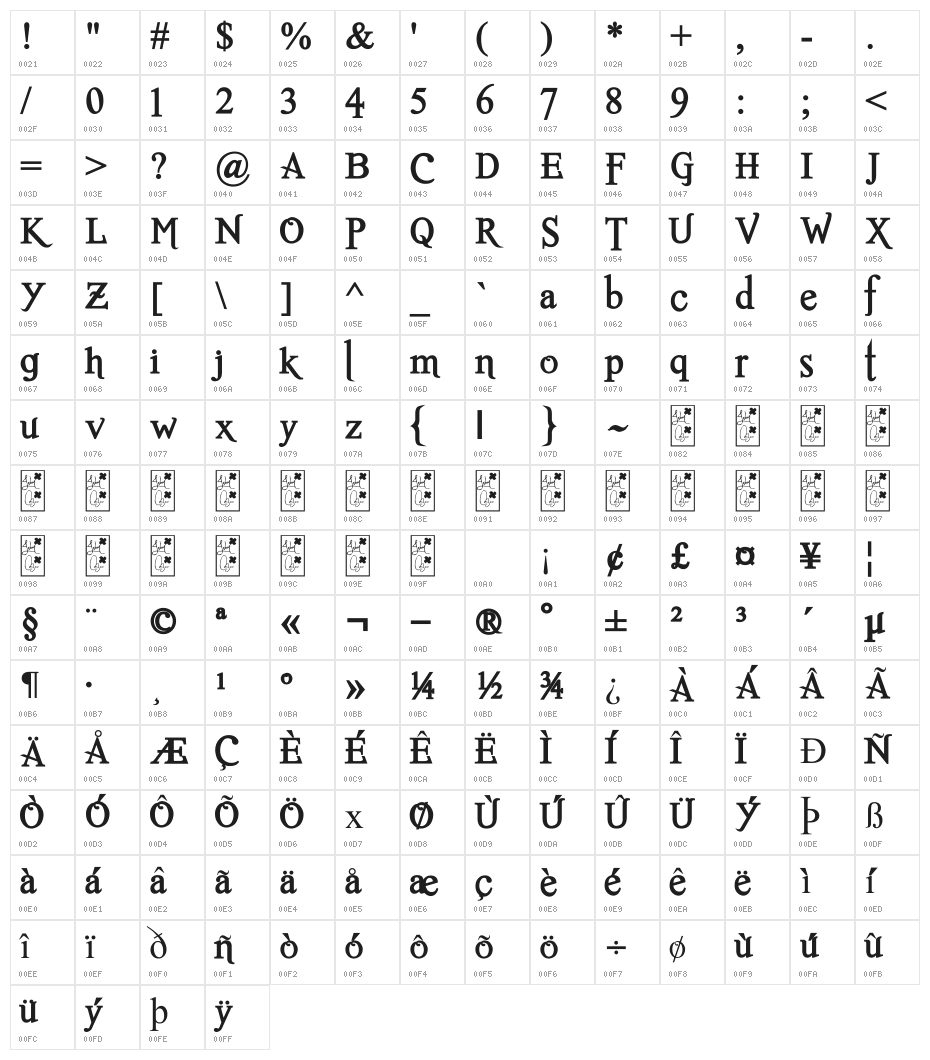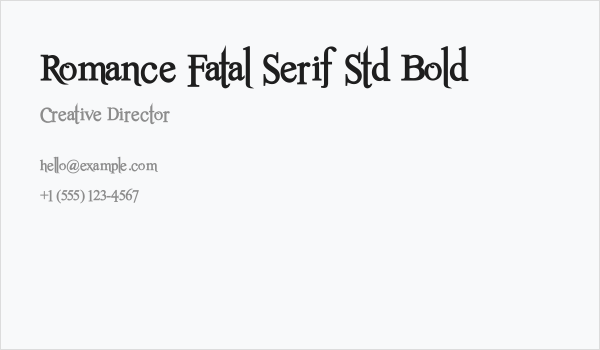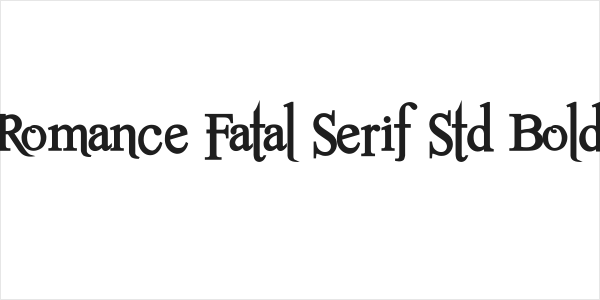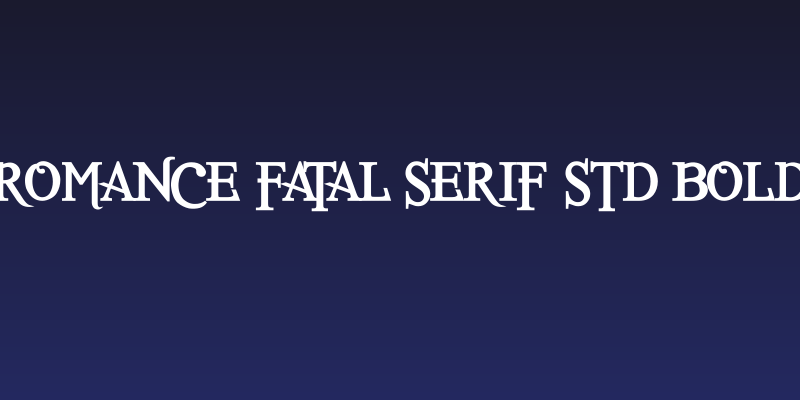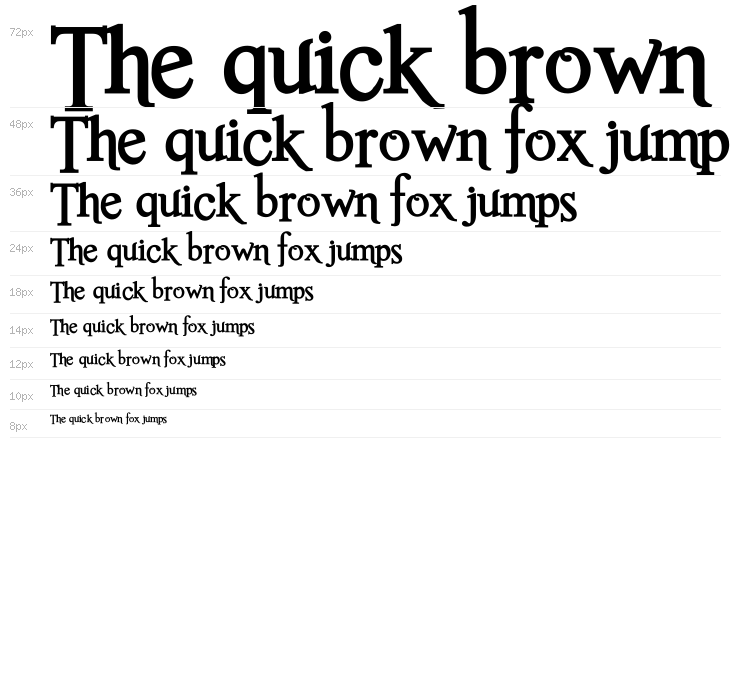
Romance Fatal Serif Std Bold Font
Romance Fatal Serif Std Bold Description
This font features a bold and dramatic serif style, characterized by its thick strokes and high contrast between thick and thin lines. The serifs are pronounced and add a classic touch to the overall design. The uppercase letters are strong and commanding, while the lowercase letters maintain a sense of elegance and readability. The numerals are consistent with the bold style, ensuring clarity and impact. Special characters are well-integrated, maintaining the font's cohesive appearance. This font is ideal for making a strong visual statement.
| Use Case | Headlines, Logos, Editorial design |
| Proposed Projects | Ideal for book covers, headlines, branding, and editorial design where a strong, classic presence is desired. |